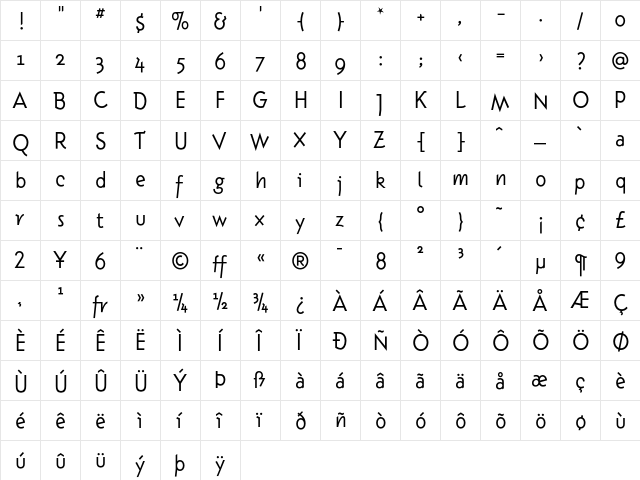
Instanter Light
Design Context for Instanter Typeface
Instanter is a composed and adaptable typeface that performs quietly and consistently across a wide range of design contexts. The delicate stroke weight brings airiness and refinement to layouts.